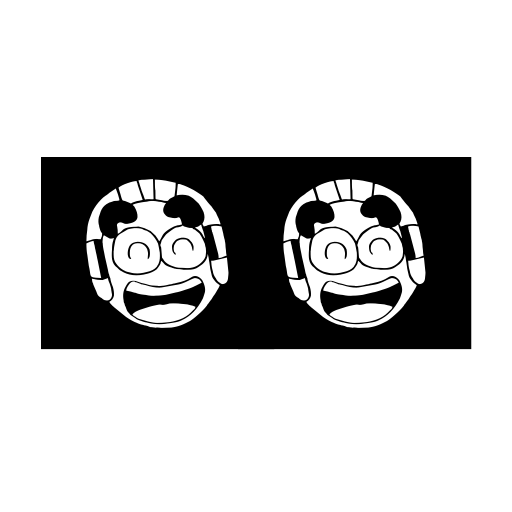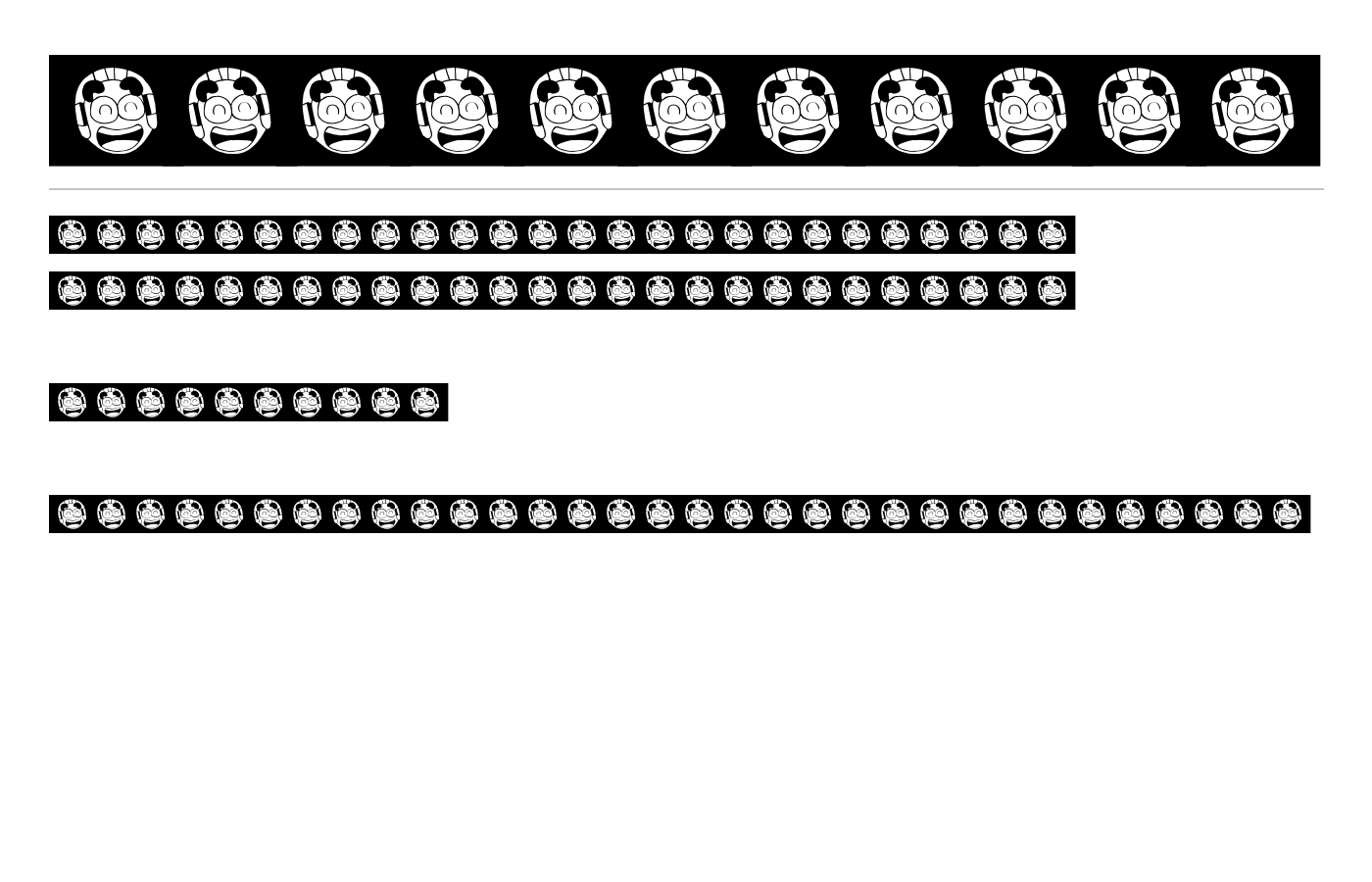
BOOD STREET is a playful and bold display font characterized by its cartoonish, quirky style and heavy weight. Its rounded, geometric forms and exaggerated features create a fun, informal vibe, making it ideal for creative projects, children’s media, or branding that seeks a lively and approachable personality. This font works best in headlines, logos, and posters where a strong, friendly impression is desired.
BOOD STREET Font